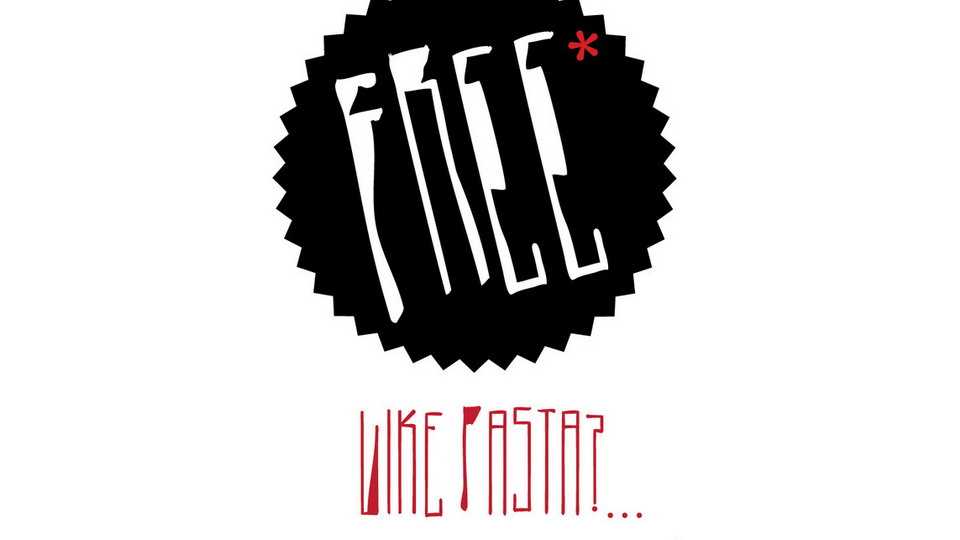
Download Pasta Simpla font, an experimental tall and thin font based upon a grid before tweaked by hand. This font is suitable for display purposes, such as posters, headlines, prints and other artworks.
Designer: Béla Frank